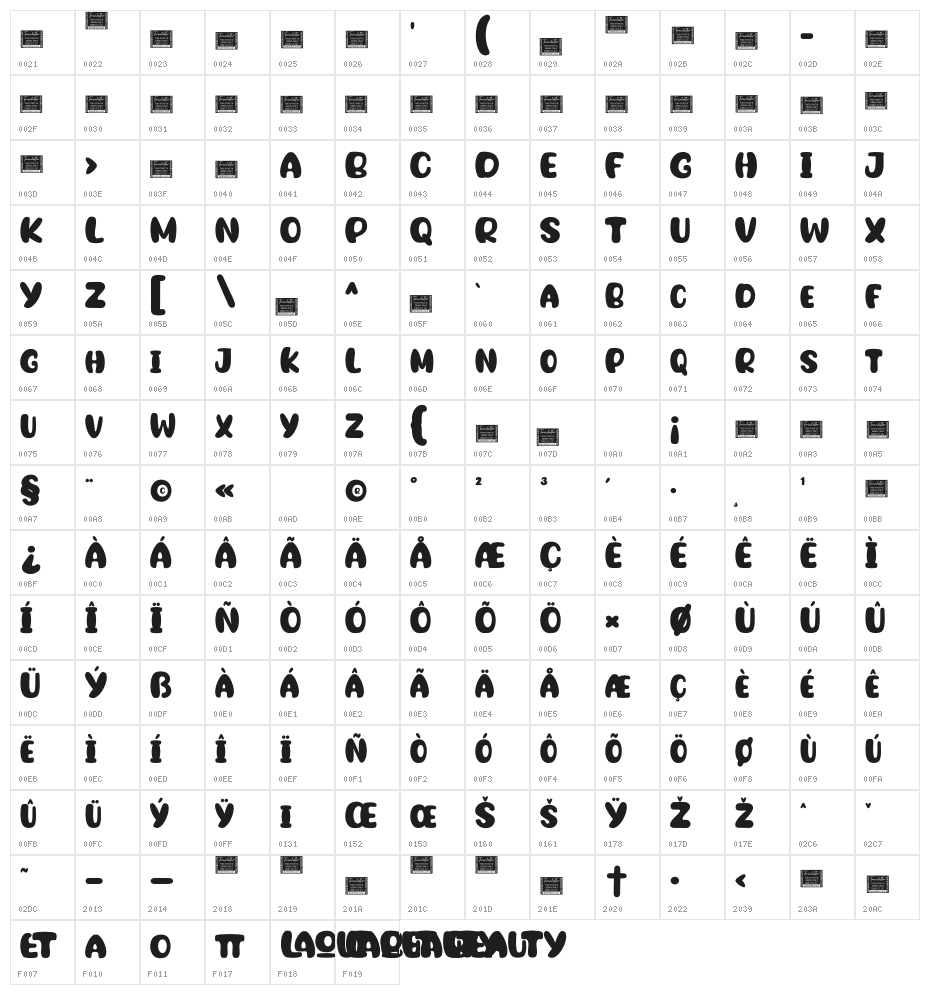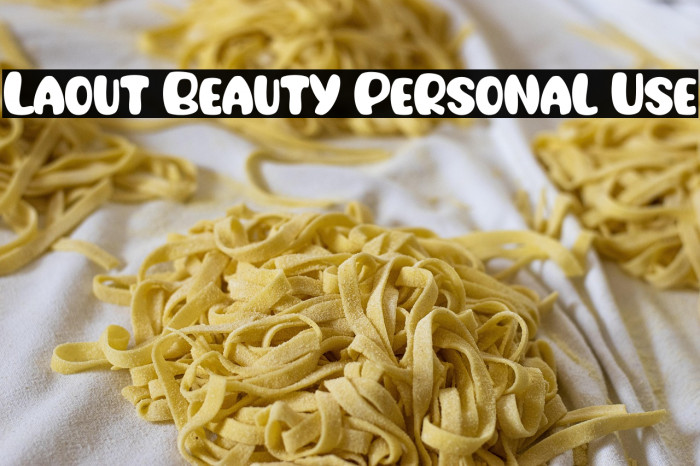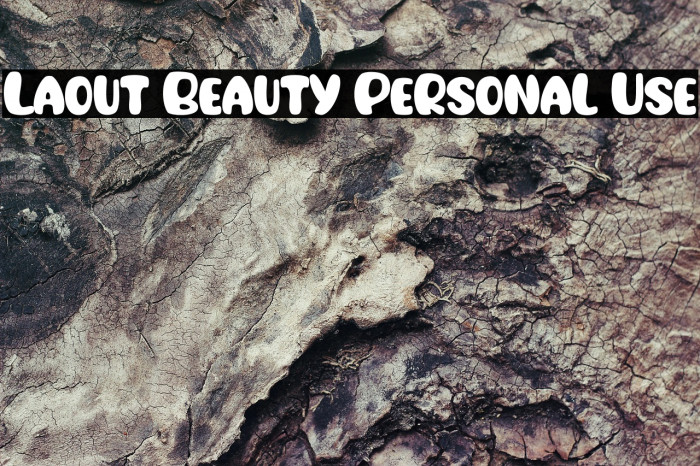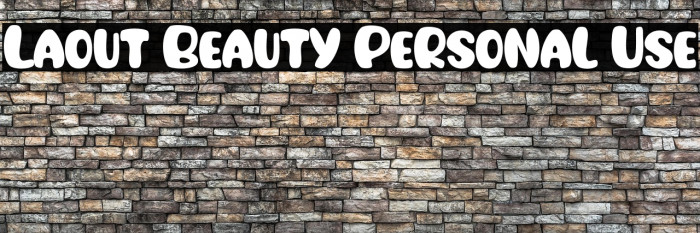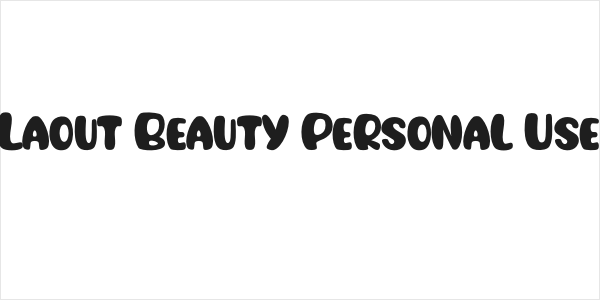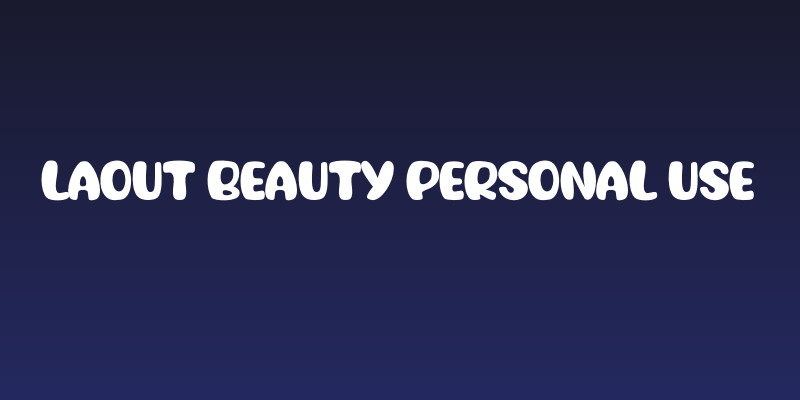
Laout Beauty Personal Use Font
Laout Beauty Personal Use Description
This font features bold, rounded characters with a playful and friendly appearance. The letters are thick and have a consistent stroke width, giving them a strong presence on the page. The rounded edges and smooth curves contribute to a soft and approachable look, making it suitable for informal and casual designs. The uppercase and lowercase letters maintain a uniform style, ensuring readability and coherence. The font's overall design is modern and versatile, capable of adding a touch of whimsy to any project.
| Proposed Projects | Ideal for children's books, playful branding, casual invitations, and social media graphics. |